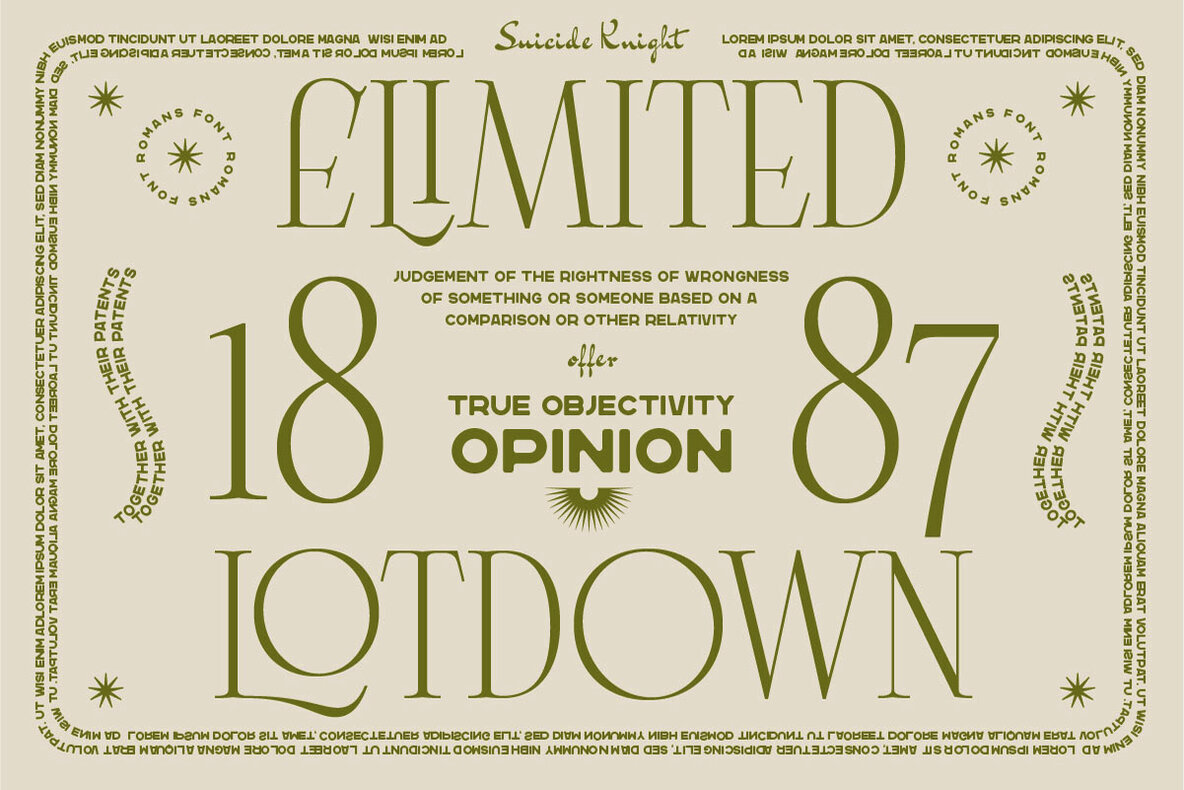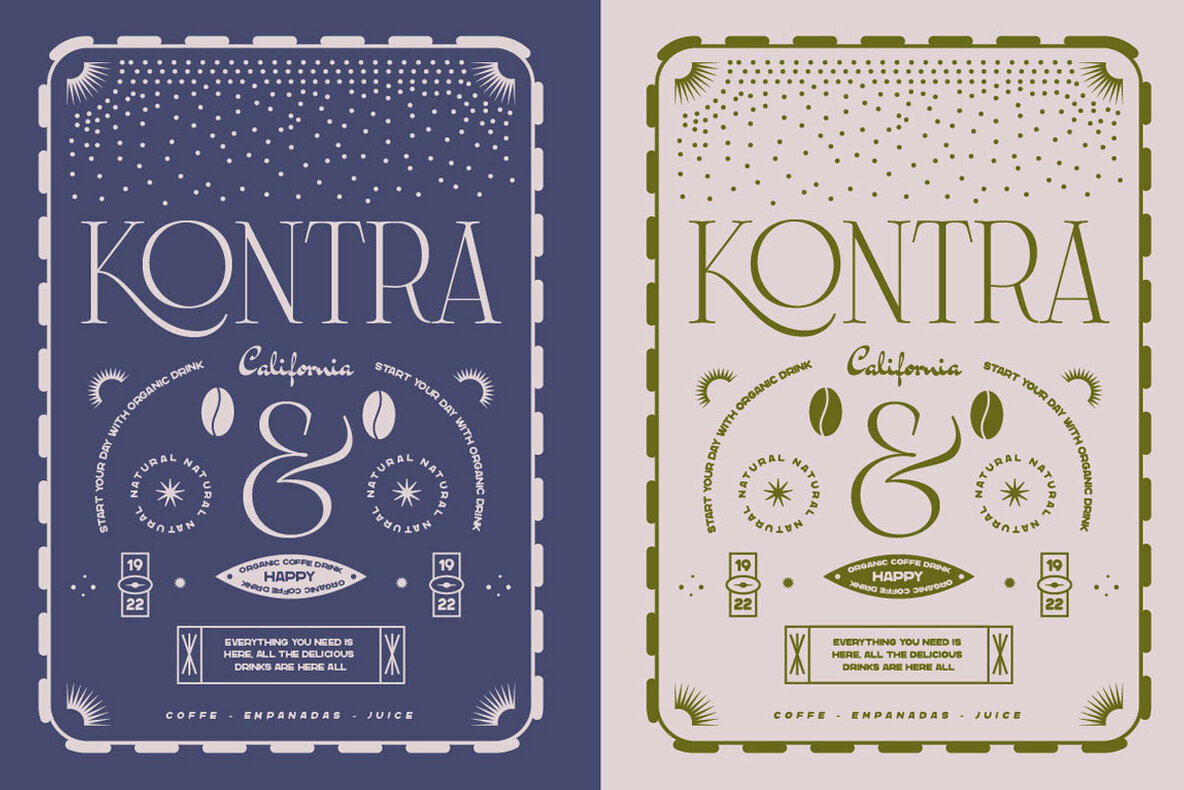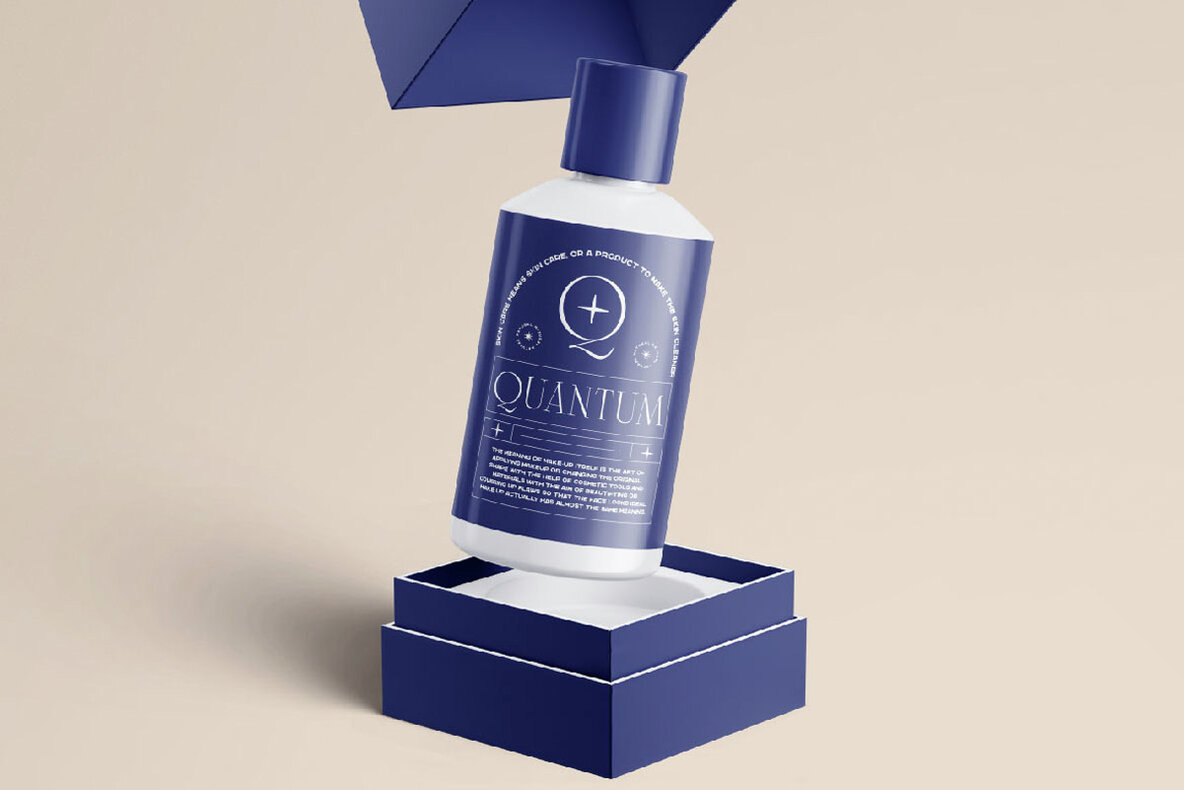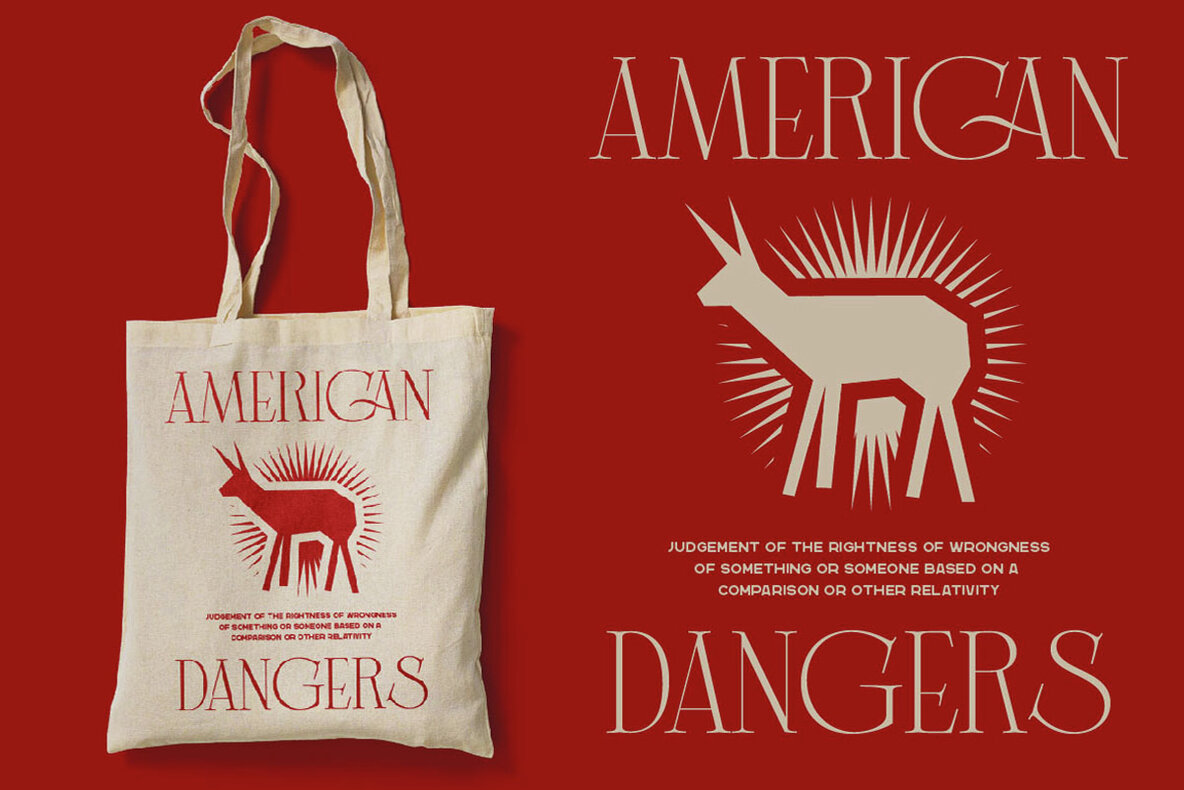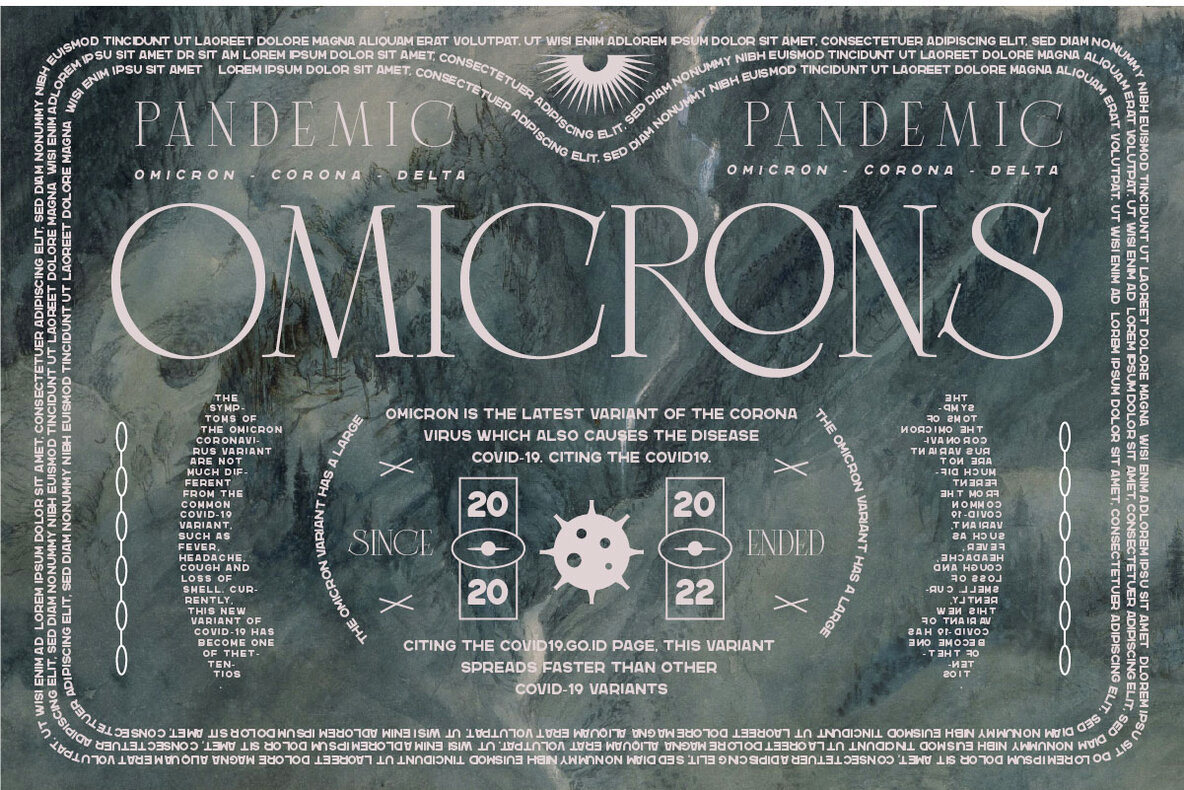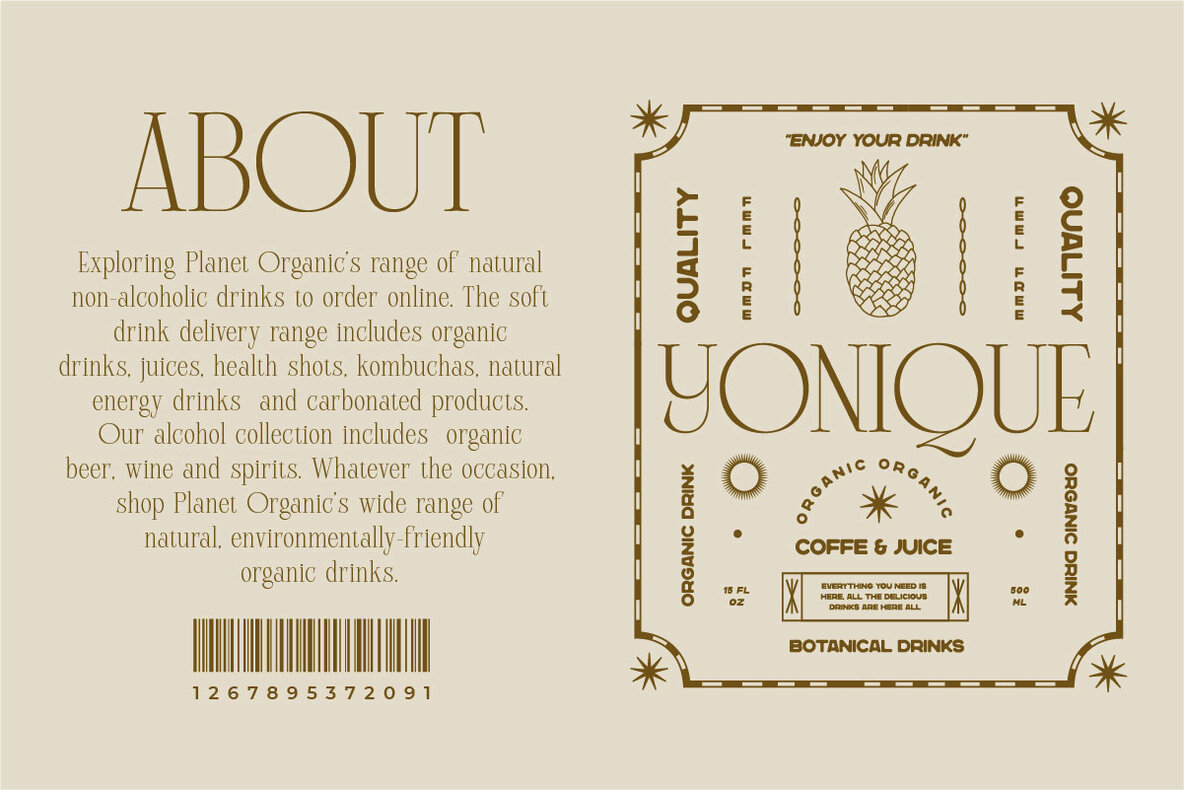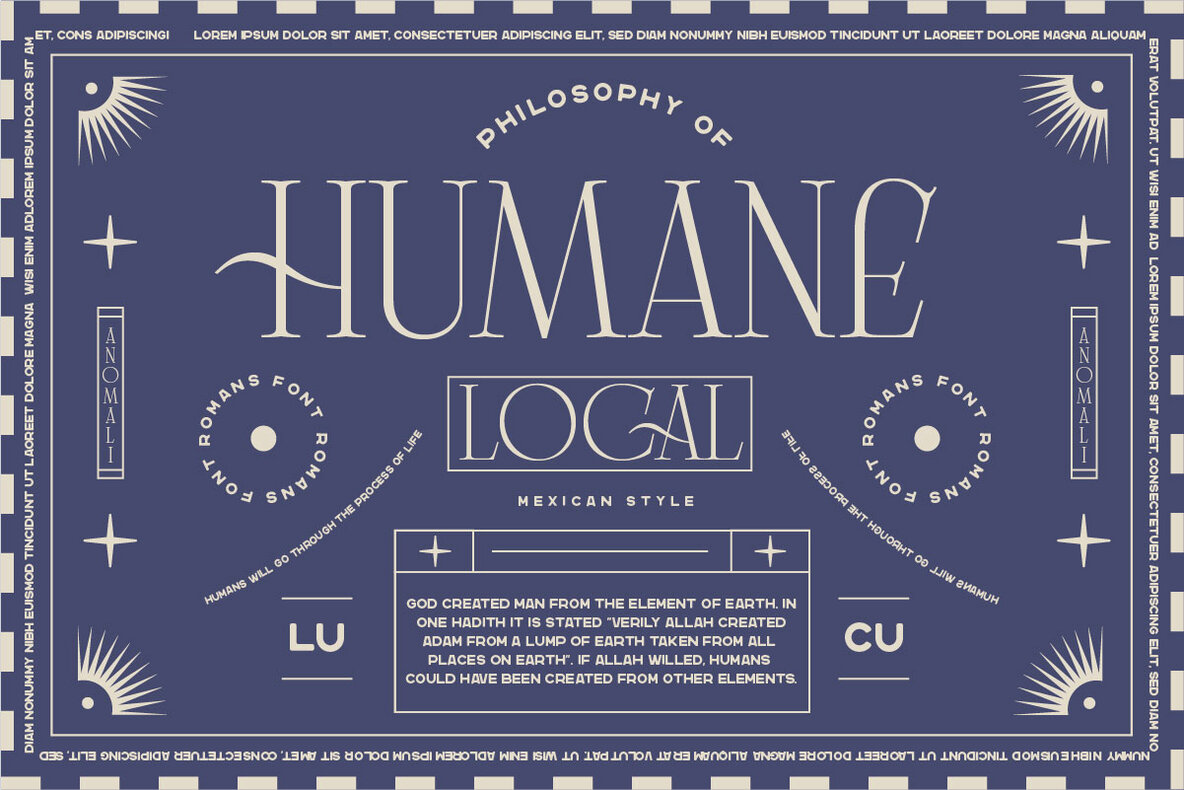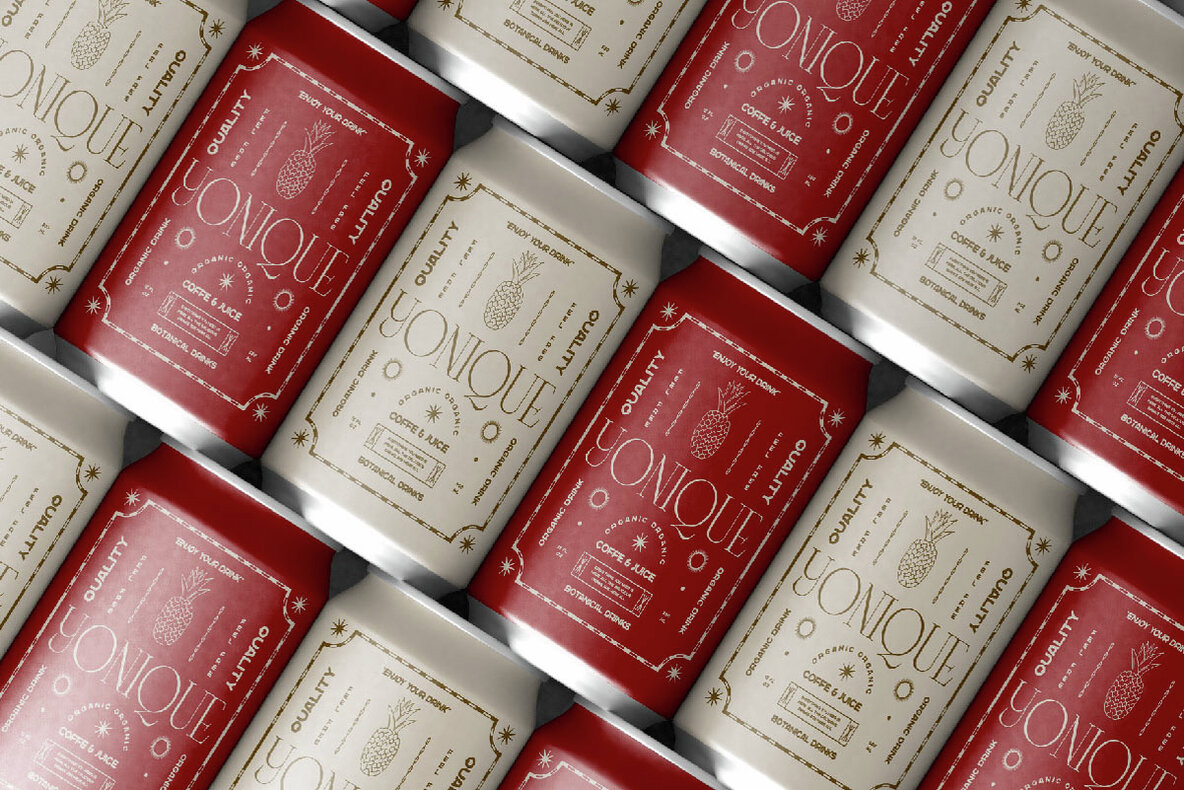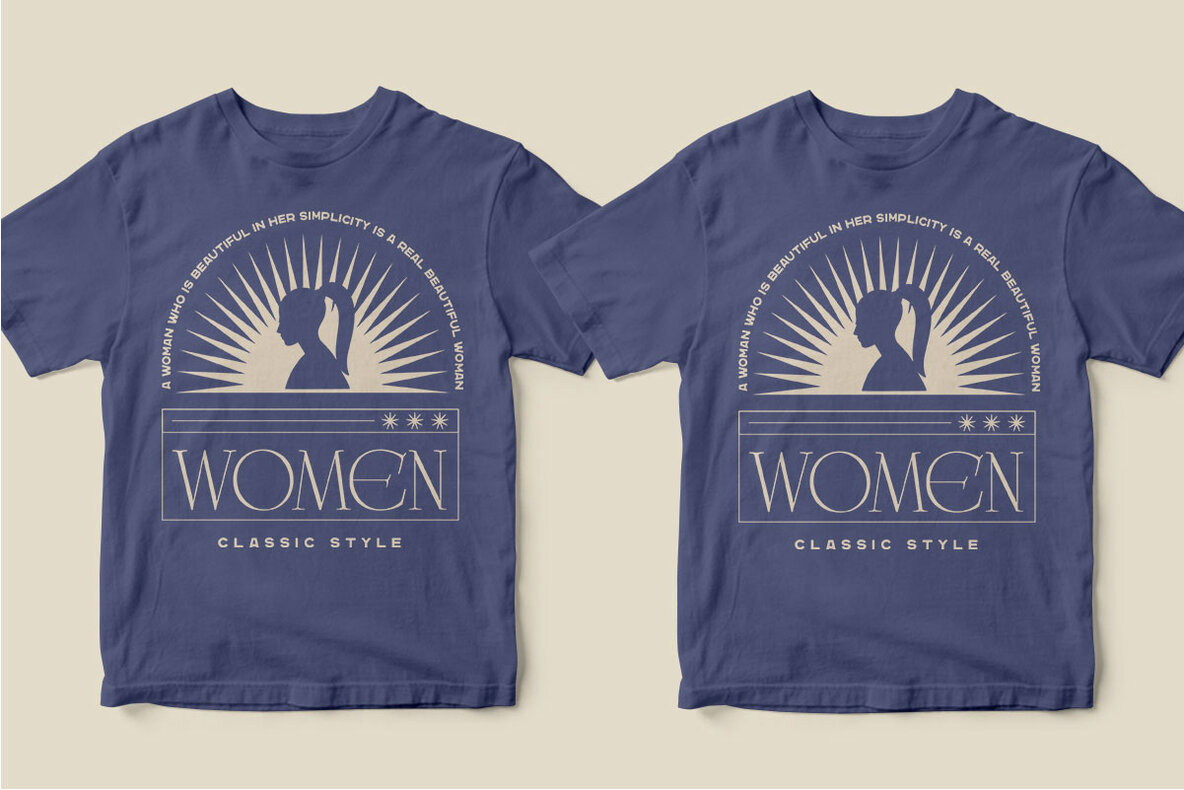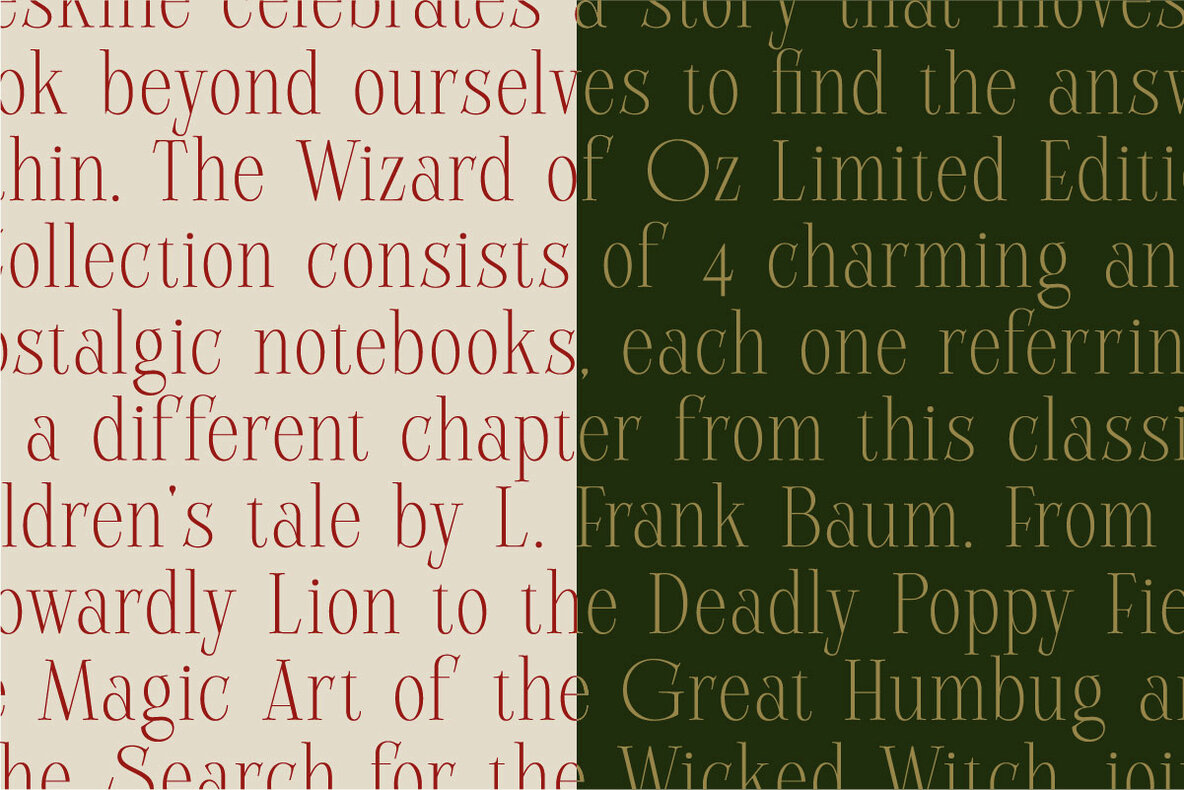
Wolfsburg is a unique typeface designed to enhance your creative projects with sophistication. Drawing inspiration from a famous minimalist logo, this font is ideal for a variety of applications, including template creation, brochure design, video content, and advertising branding. Its clean and modern aesthetic makes it a perfect choice for logos, invitations, and layout designs, catering to projects that require an elegant touch.
Whether you're involved in crafting or beauty design, Wolfsburg offers versatility and grace. Its sleek design allows it to serve multiple design needs, providing a cohesive and professional look to any project. This font's simplicity and elegance ensure it integrates smoothly, delivering visually appealing results without overpowering the overall design.